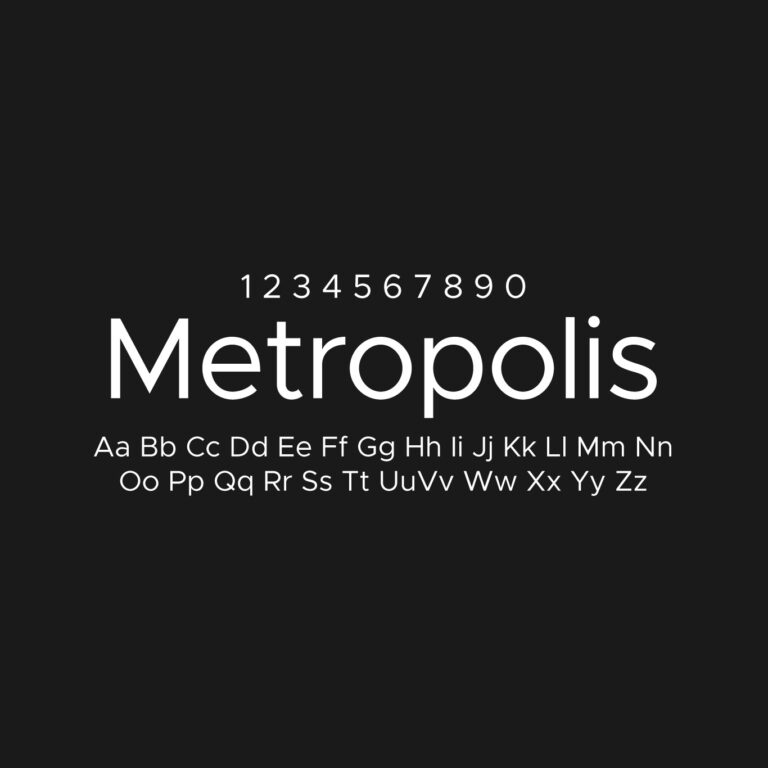
Metropolis is a modern geometric sans-serif typeface influenced by minimalist sans-serif typefaces of the new millennium. Its clean shapes, balanced proportions, and open structure make it useful for both small text and large display typography. The font has a contemporary, neutral, and highly practical character, making it a strong choice for digital design systems and polished brand layouts.
Metropolis is often used as a free geometric sans-serif alternative for projects that need a style close to fonts such as Gotham, Proxima Nova, Montserrat, Avenir, or Circular-style typefaces. It is not a direct copy of those fonts, but its modern proportions and wide range of weights make it useful in similar branding, web design, UI, and presentation contexts.
Best Uses
Metropolis is suitable for website typography, app interfaces, SaaS landing pages, dashboards, brand identity design, logo and wordmark concepts, poster design, social media graphics, YouTube thumbnails, packaging, editorial layouts, magazine covers, presentations, brochures, and modern corporate design systems.
Its Regular and Medium styles work well for interface text, navigation, labels, buttons, cards, and short paragraphs. Bold, ExtraBold, and Black styles are useful for headlines, hero sections, banners, posters, thumbnails, and strong display typography. Thin, ExtraLight, and Light styles are better for elegant headings, minimal layouts, and premium-looking design systems.
Metropolis Font Pairings
Metropolis pairs well with both serif and sans-serif fonts depending on the design style. For clean website layouts, it can be paired with Inter, Roboto, Open Sans, Lato, Source Sans Pro, Work Sans, Nunito, or Montserrat. For editorial or more refined designs, Metropolis can be paired with Lora, Libre Baskerville, Merriweather, Playfair Display, Cormorant Garamond, or Source Serif.
A practical approach is to use Metropolis for headings, navigation, buttons, cards, and interface elements, then pair it with a more readable serif or neutral sans-serif for body text and long-form content.
Metropolis as a Gotham or Proxima Nova Alternative
Metropolis is often used as a free geometric sans-serif alternative to Gotham, Proxima Nova, Montserrat, Avenir, and Circular-style fonts. Its clean structure, modern rhythm, and wide range of weights make it useful for similar branding, UI design, website, poster, and presentation projects.
For projects where commercial typefaces are not available or licensing is a concern, Metropolis can be a practical open-source option. It offers 9 weights with matching italic styles, giving designers enough flexibility to build clean typographic hierarchy across digital and print layouts.
Fonts similar to Metropolis include Gotham, Proxima Nova, Montserrat, Avenir, Poppins, Circular-style sans-serif fonts, Satoshi, Gilroy, Manrope, Raleway, and Futura. These alternatives are useful for branding, websites, UI design, posters, packaging, and geometric sans-serif typography.